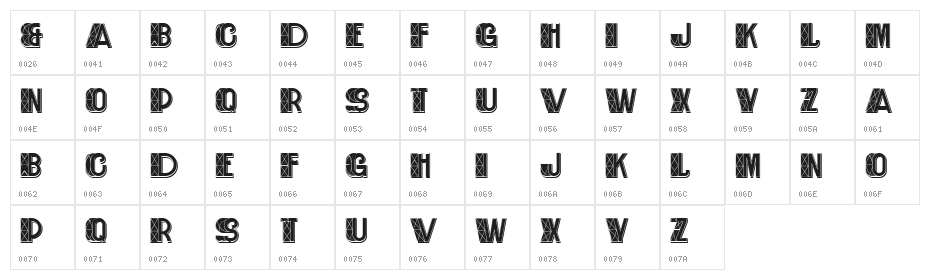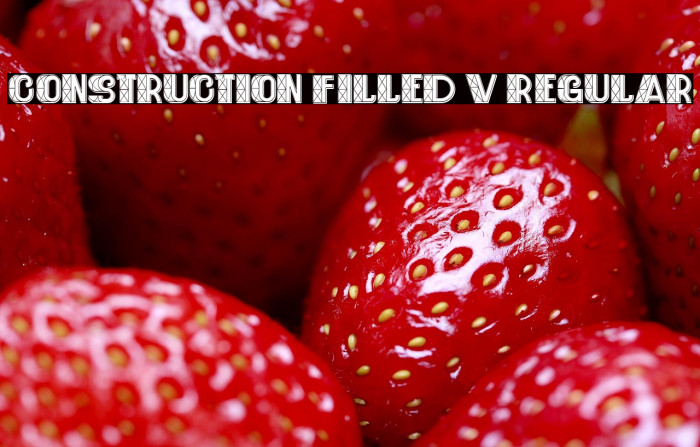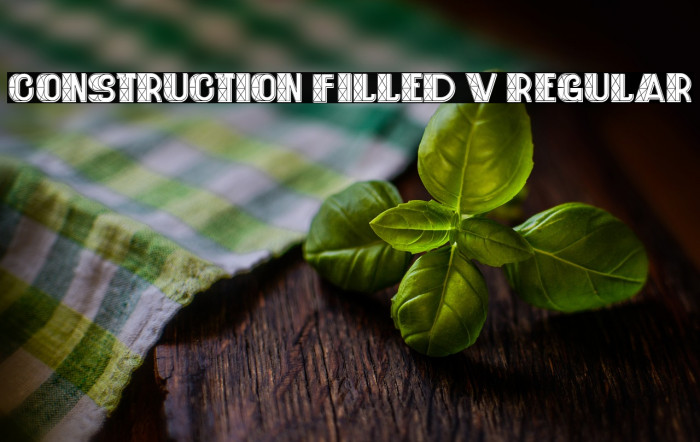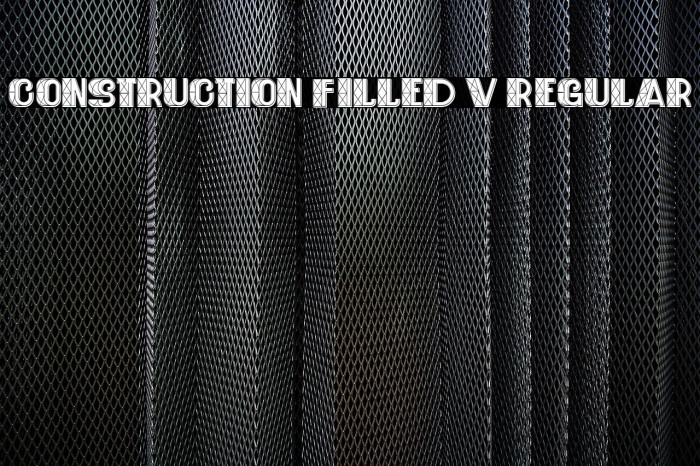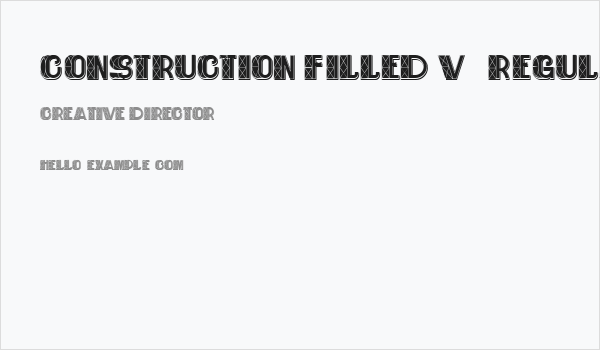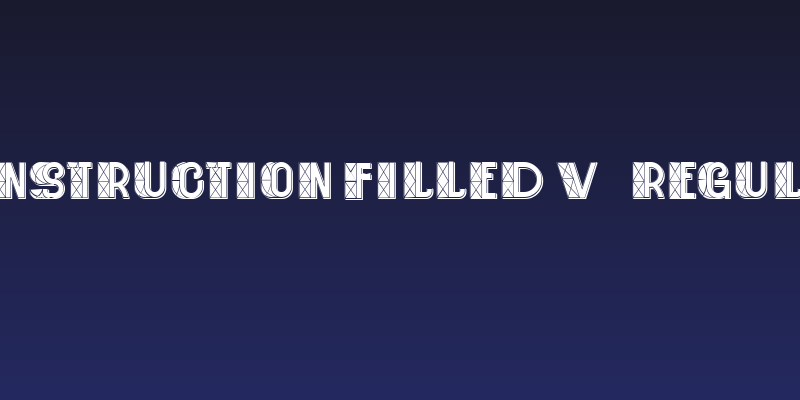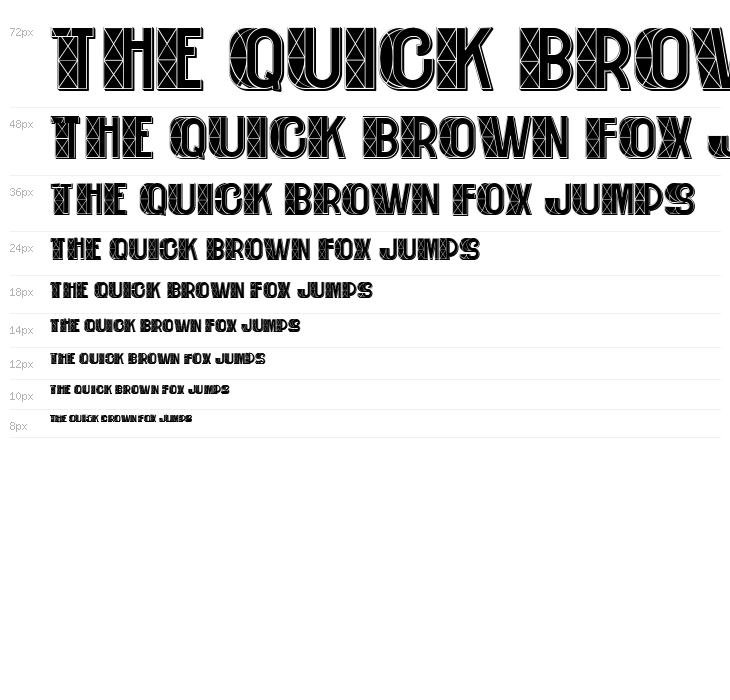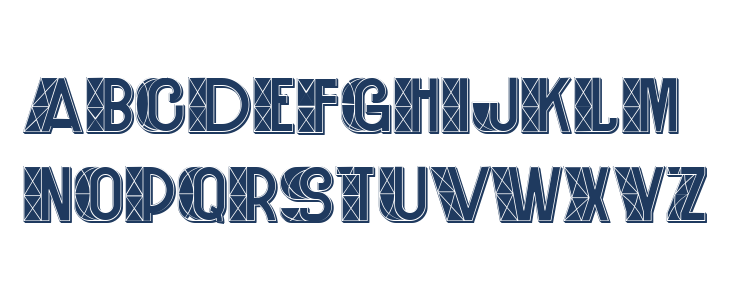
Construction Filled V3 Regular Font
Construction Filled V3 Regular Description
This font features a bold, geometric design with a filled construction pattern that gives it a unique, industrial look. The letters are composed of thick, solid strokes intersected by diagonal and horizontal lines, creating a sense of depth and complexity. The style is consistent across both uppercase and lowercase letters, maintaining a uniform appearance. The font's distinct structure makes it stand out, ideal for projects that require a strong visual impact. Its decorative nature is emphasized by the intricate line work within each character, making it suitable for creative and artistic applications.
| Proposed Projects | Ideal for branding, posters, and signage where a strong, industrial aesthetic is desired. |